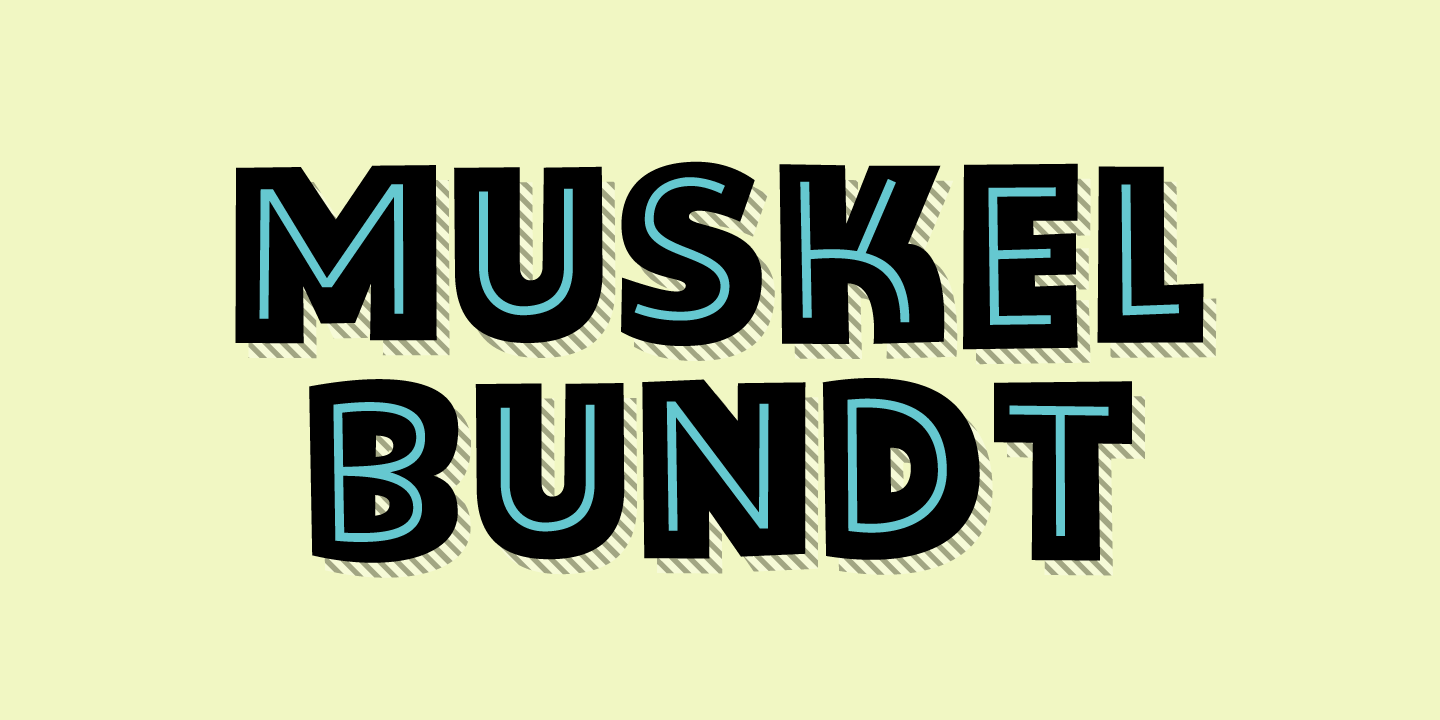
This powerful display font is perfect for fitness gym branding, bodybuilding supplement packaging, athletic wear marketing, strength training promotions, sports equipment logos, muscle-building campaigns, weightlifting competition materials, and dynamic design projects that celebrate physical strength and muscular development.
Muskelbundt Font is exciting because it embodies raw power with its muscular letterforms that flex with athletic strength and commanding presence. The font delivers gym-grade intensity while maintaining champion-level readability that motivates fitness enthusiasts and celebrates physical excellence.
The Muskelbundt Font family includes regular and bold versions with fitness-themed decorative elements, muscle symbols, and athletic ornaments, providing designers with comprehensive tools for creating powerful typography that builds brand strength.
Ready to flex your design muscles? Muskelbundt Font Free Download offers designers powerful letterforms that pump with athletic energy and muscular sophistication. This commanding typeface combines fitness aesthetics with professional functionality, making it ideal for gyms, supplement companies, and athletic brands. Whether you're designing fitness equipment brochures, bodybuilding competition posters, or athletic supplement packaging, this font delivers championship appeal. The powerfully crafted characters feature muscular structure while maintaining excellent readability across fitness applications. Perfect for businesses in fitness training, athletic supplements, sports equipment, and bodybuilding that celebrate physical strength and athletic achievement. The font's muscular construction creates memorable brand recognition that resonates with fitness enthusiasts worldwide. Each letter showcases deliberate power that mirrors the impressive strength of well-developed muscles. Download today and build unstoppable success in your creative projects with this premium display font that transforms ordinary text into extraordinary expressions of athletic power and the commanding strength of Muskelbundt Font Free Download fitness.